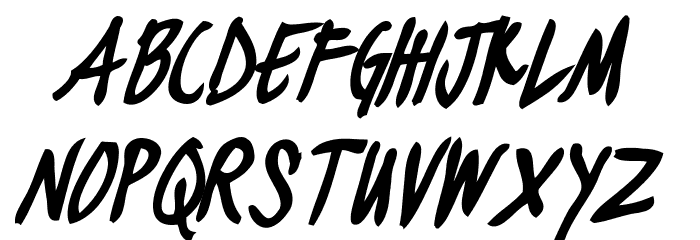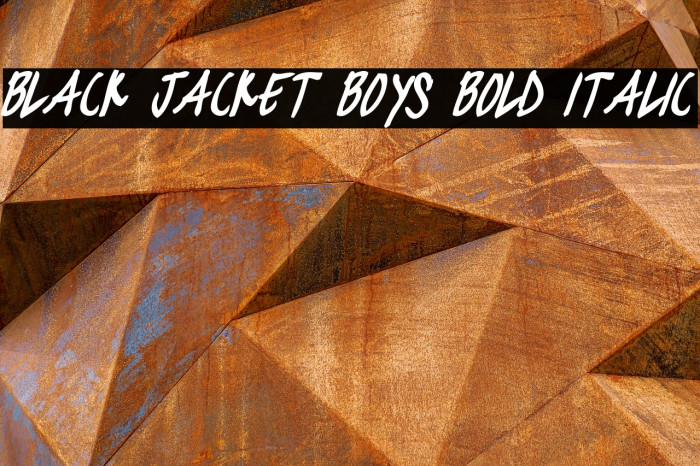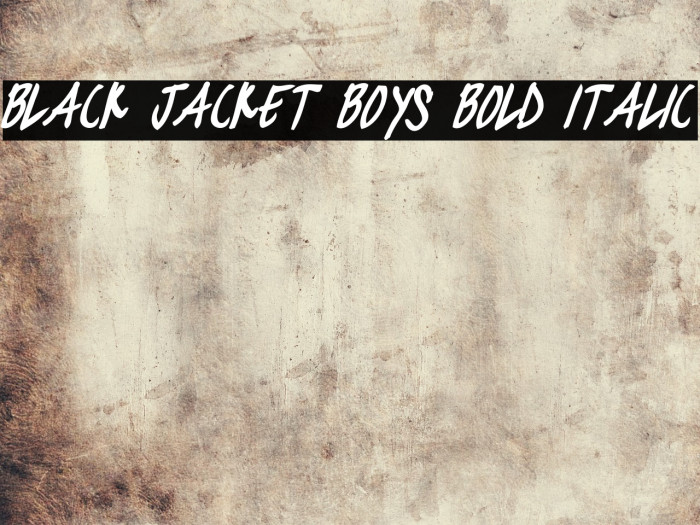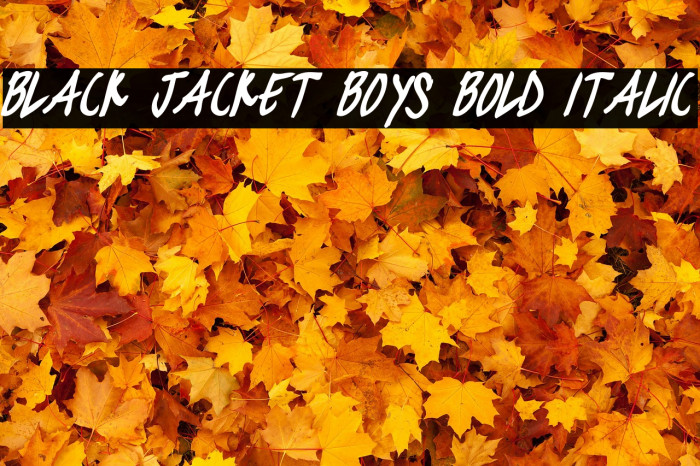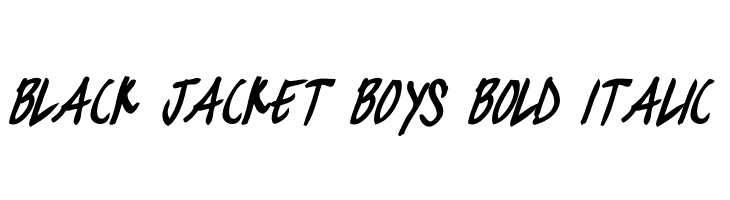
black jacket boys Bold Italic Font
This font features a bold and dynamic style with a strong italic slant, giving it a sense of movement and energy. The characters are thick and expressive, with a handwritten feel that adds a personal touch. The strokes are smooth and fluid, creating a cohesive look across all letters. This font is ideal for making a statement, as its boldness ensures it stands out in any design. The uppercase and lowercase letters maintain a consistent style, with slight variations that enhance its handwritten appearance. The numbers and special characters are equally bold and maintain the same energetic style, making them suitable for a variety of uses.
A bold, italic, handwritten-style font with dynamic and expressive characters.
- Proposed Projects: Ideal for branding, posters, headlines, and any project requiring a bold, energetic typeface.